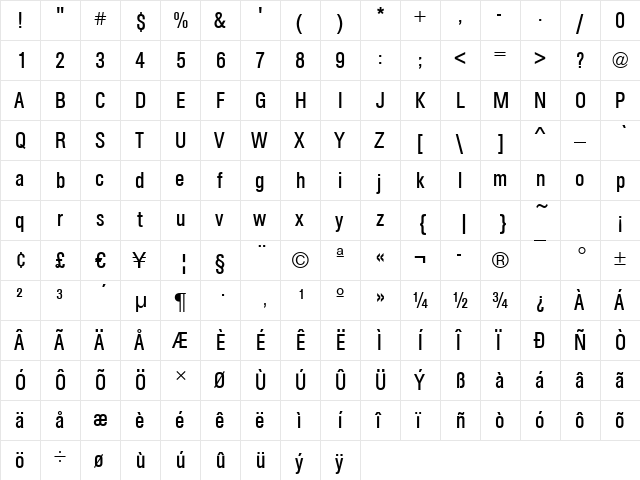
Arezzo-Cd Regular
Design Context for Arezzo-Cd Typeface
Arezzo-Cd is a composed and adaptable typeface that performs quietly and consistently across a wide range of design contexts.